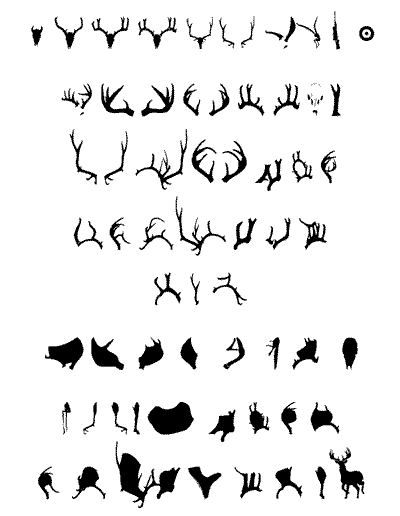
Rival, Robert Williams.
Rival rose out of a hidden desire to embrace the primal
side of ourselves. Often we repress this very important aspect to
our very nature leaving one to question or seek out affimationa that
we are still alive and very much interconnected with all of the other
highly competitive living inhabitants of this worrld. This can only
be realized by testing ones endurance and taking risk head on. The
symbolism of antlers reminds us of our roles of dominance and submissing.
We must remind ourselves to conquer that, which keeps us from great
things.